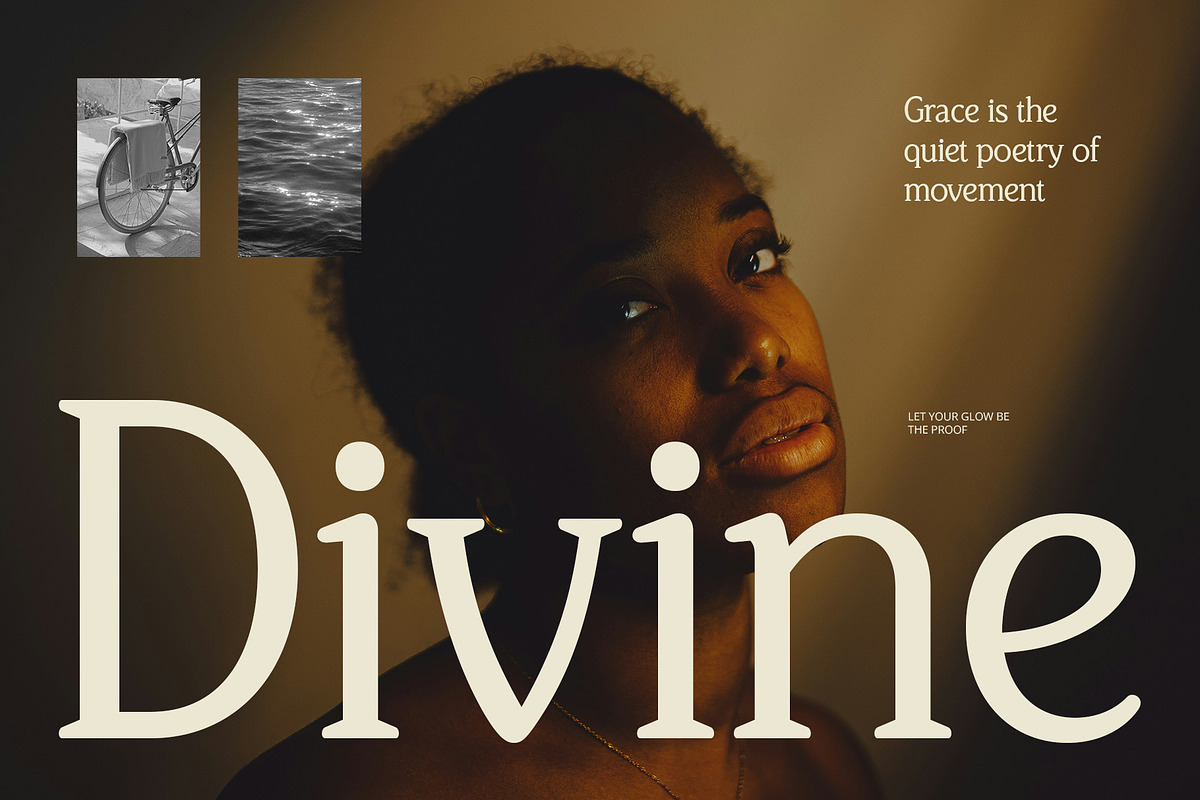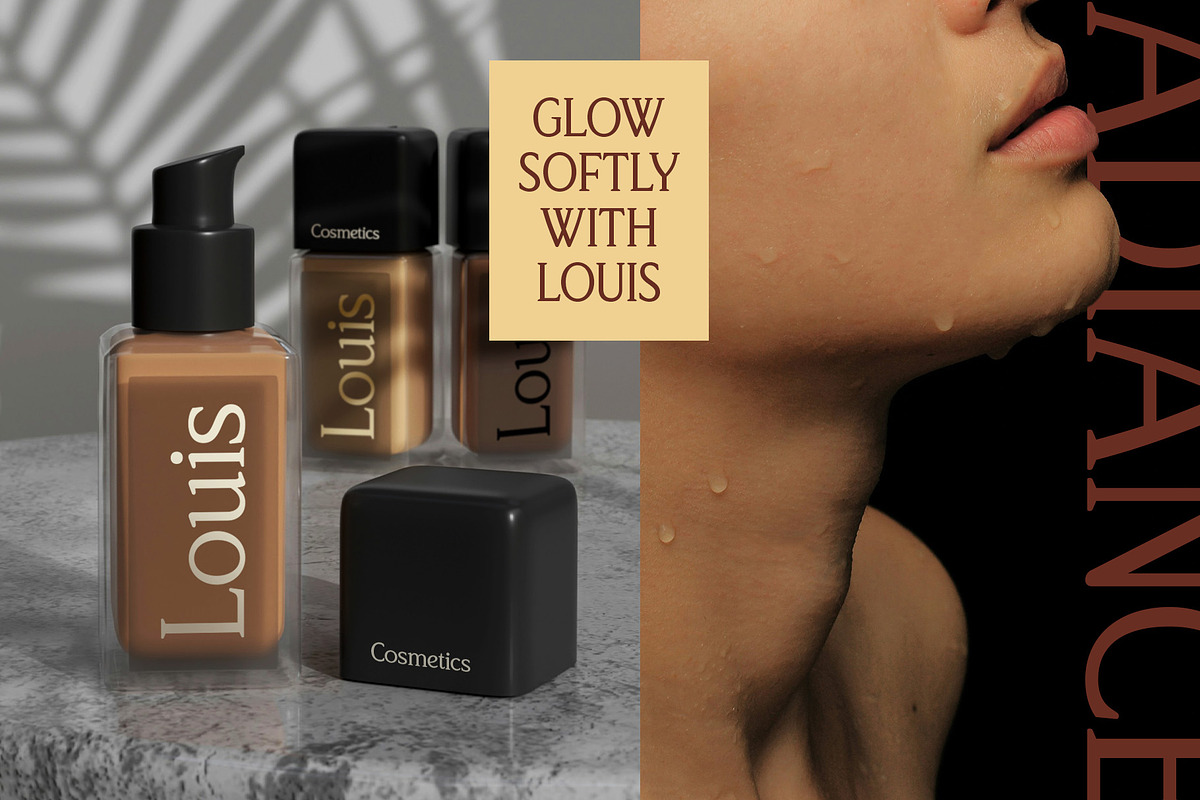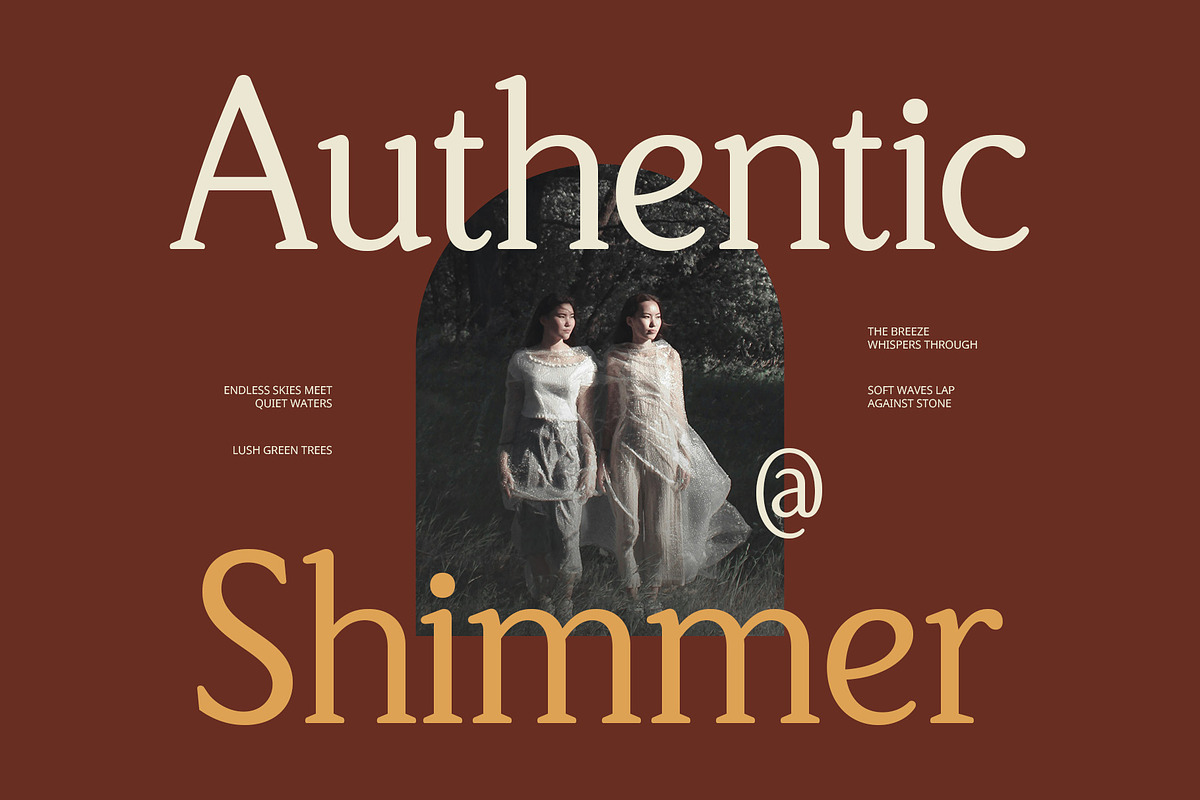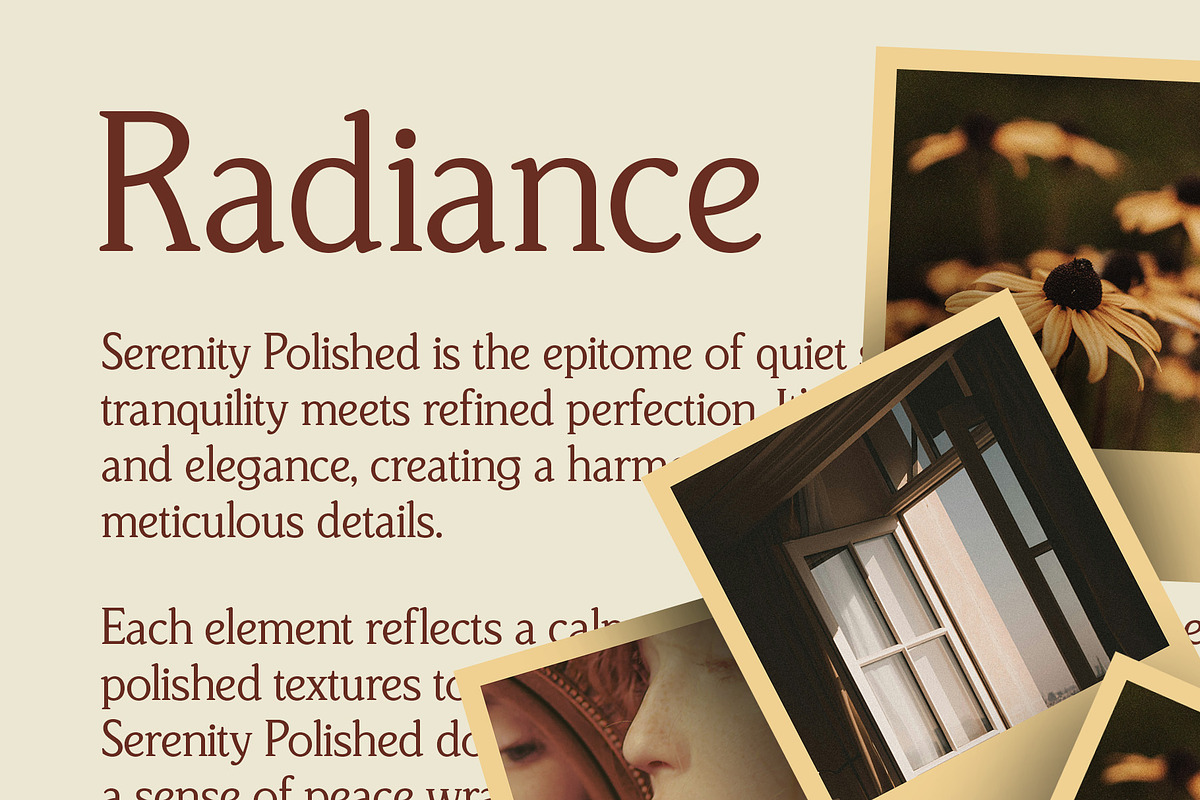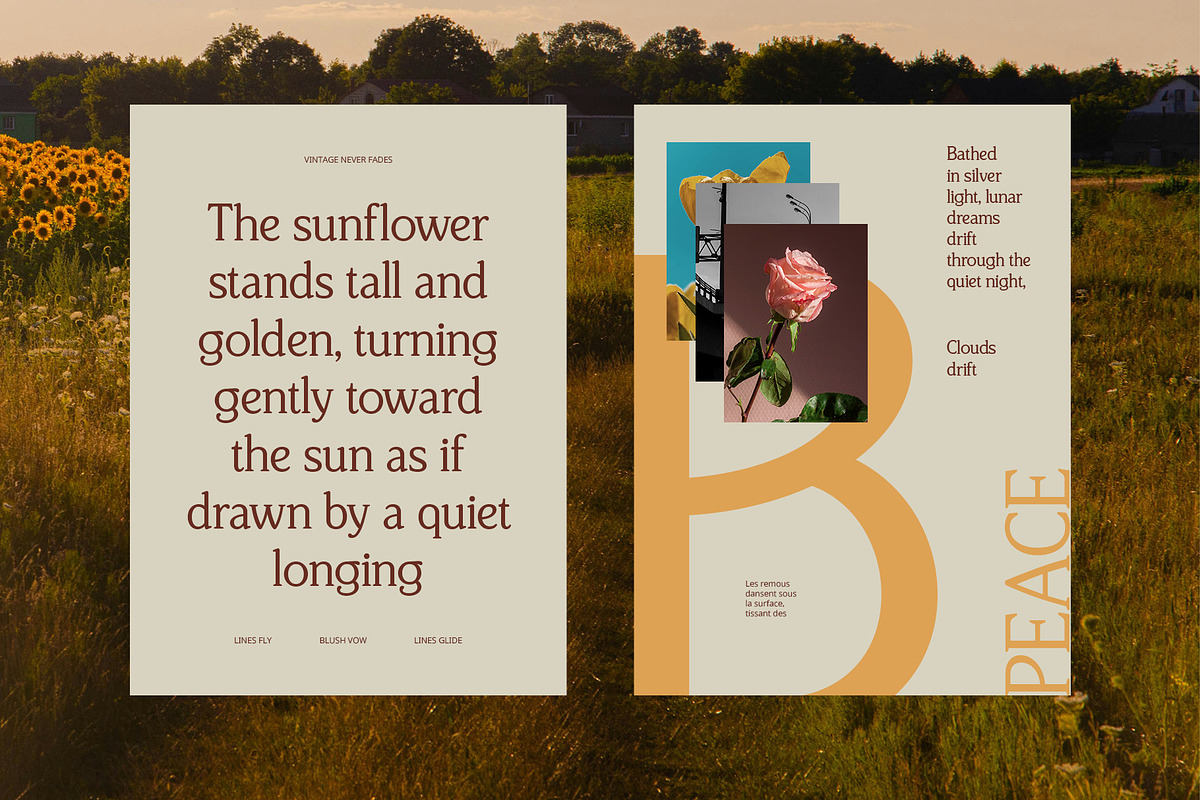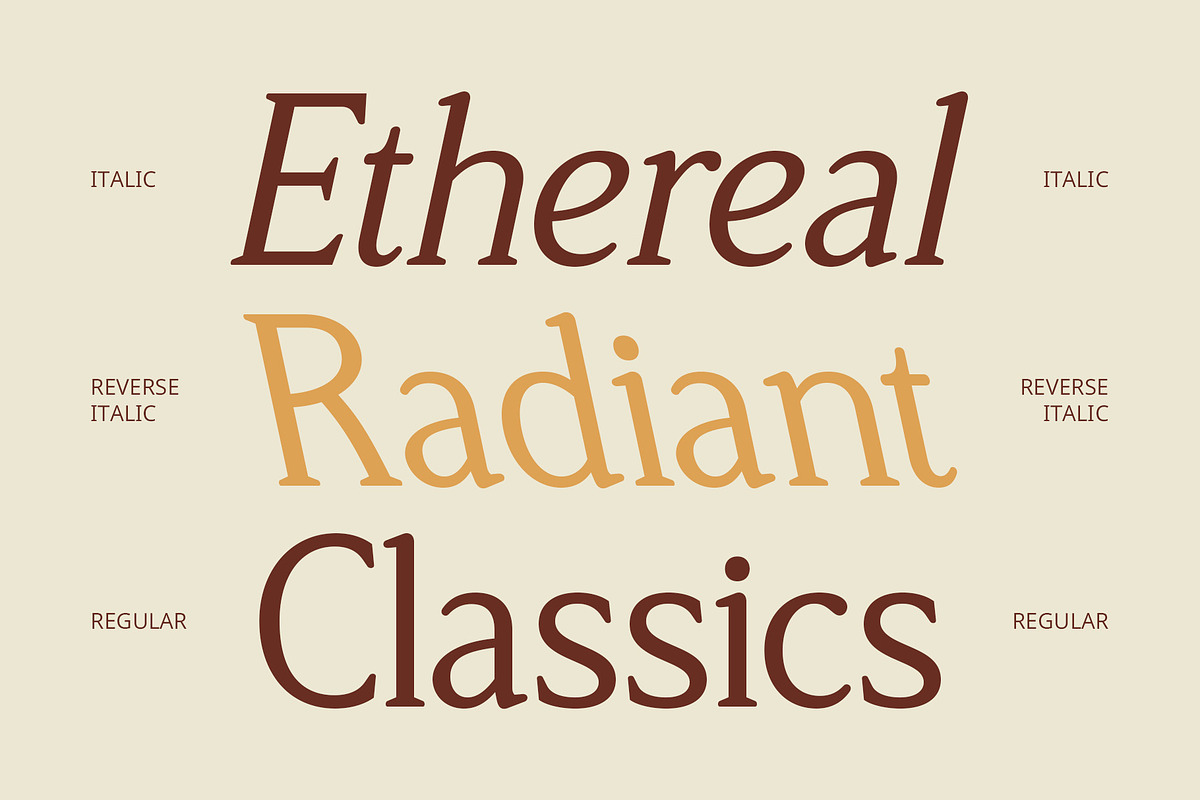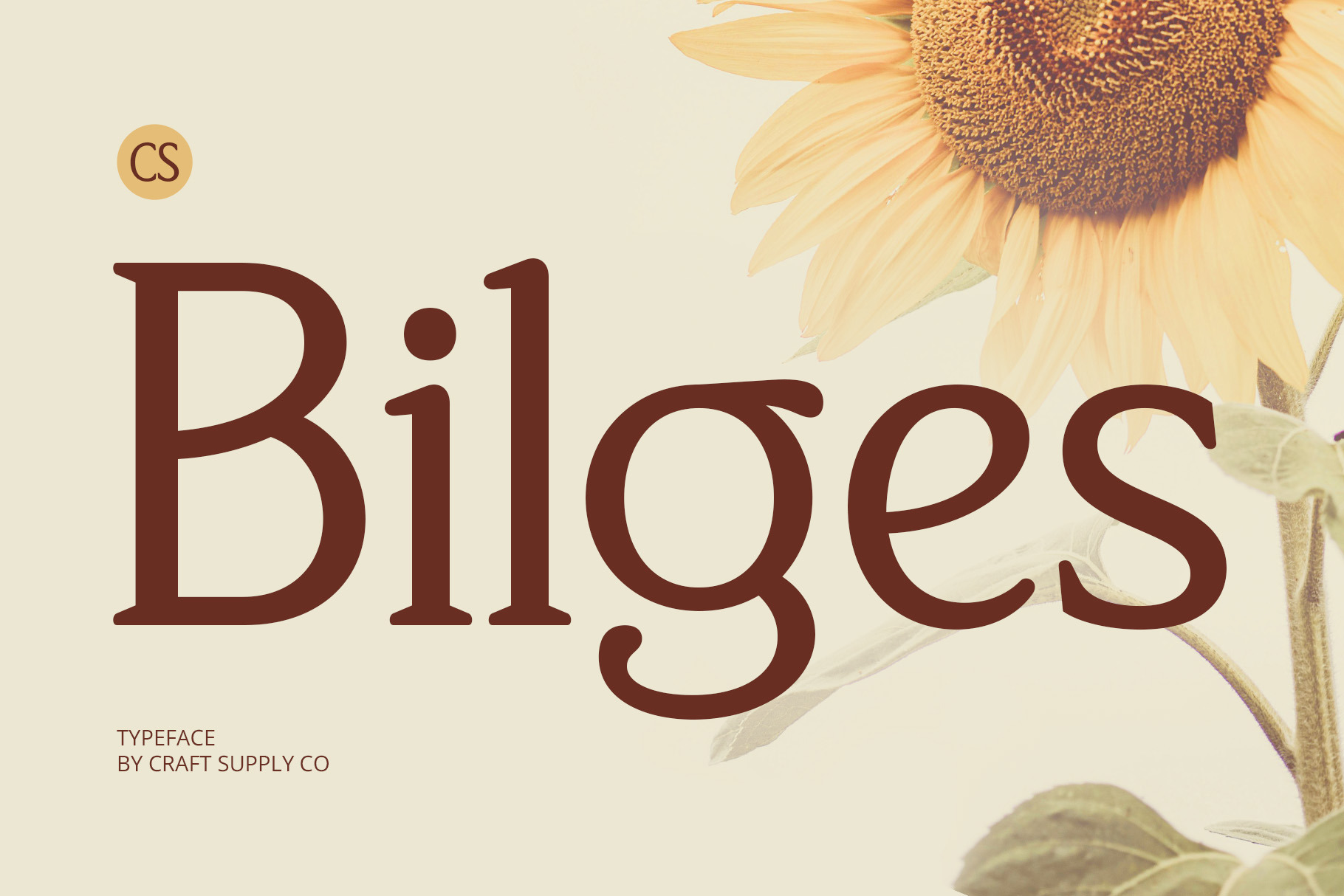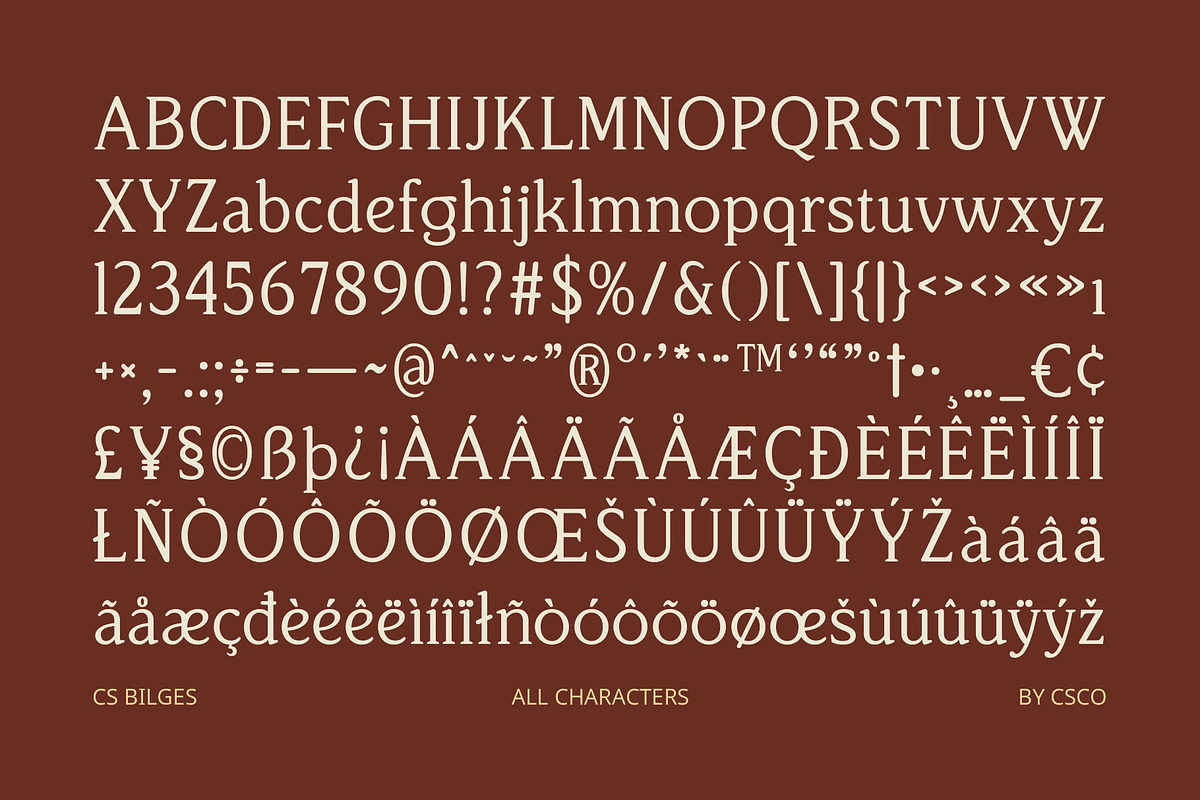
CS Bilges – Classic Font
CS Bilges – Classic Font: Elegance with a Modern Touch
Modern Classic Serif with Timeless Appeal CS Bilges is a modern classic serif font that beautifully blends traditional elegance with contemporary design. Its clean lines and slightly rounded edges offer a soft yet professional look, creating a refined aesthetic suitable for high-end branding and sophisticated editorial layouts. This font’s ability to seamlessly merge past and present design influences ensures it fits effortlessly into both traditional and modern projects.
Sleek and Elegant Form The slim, well-structured form of CS Bilges exudes both elegance and modernity. Its delicate balance between classic serif features and subtle modern curves makes it a versatile choice for projects that demand a fusion of traditional charm and cutting-edge style.
Perfect for Luxury Branding and Editorial Design CS Bilges is the ideal choice for luxury branding, editorial designs, and high-end projects. Whether used for upscale logos, fashion magazines, or premium packaging, this font adds a touch of class and refinement, ensuring your designs captivate with effortless elegance.
Versatile and Timeless for Various Applications With its sophisticated yet approachable design, CS Bilges offers exceptional versatility for a range of design needs. From professional business materials to stylish promotional content, it provides a clean and captivating visual presence that stands the test of time.
- CS Bilges Regular
- CS Bilges Italic
- CS Bilges Reverse Italic